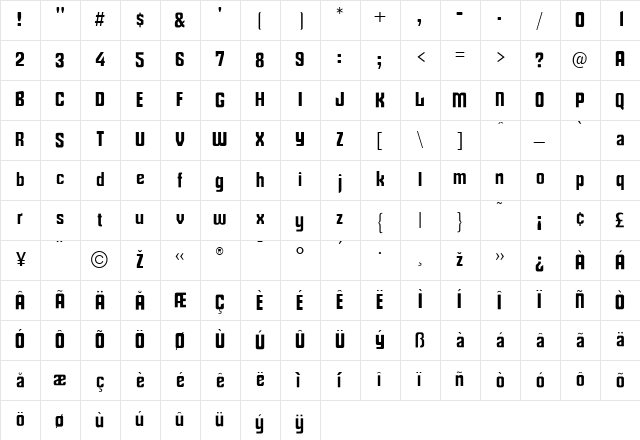
OthelloFill Regular
| Version | Version 1.100 2009 fixed '6'. This is a FILL version. Overlaying this with OthelloOutline can produce two-color characters. |
Design Context for OthelloFill Typeface
OthelloFill offers clean, dependable letterforms without strong stylistic allegiance, making it a practical choice for designers who need flexibility.
Pro Tip: Pair OthelloFill with a font of contrasting weight or personality to build a more expressive typographic hierarchy.